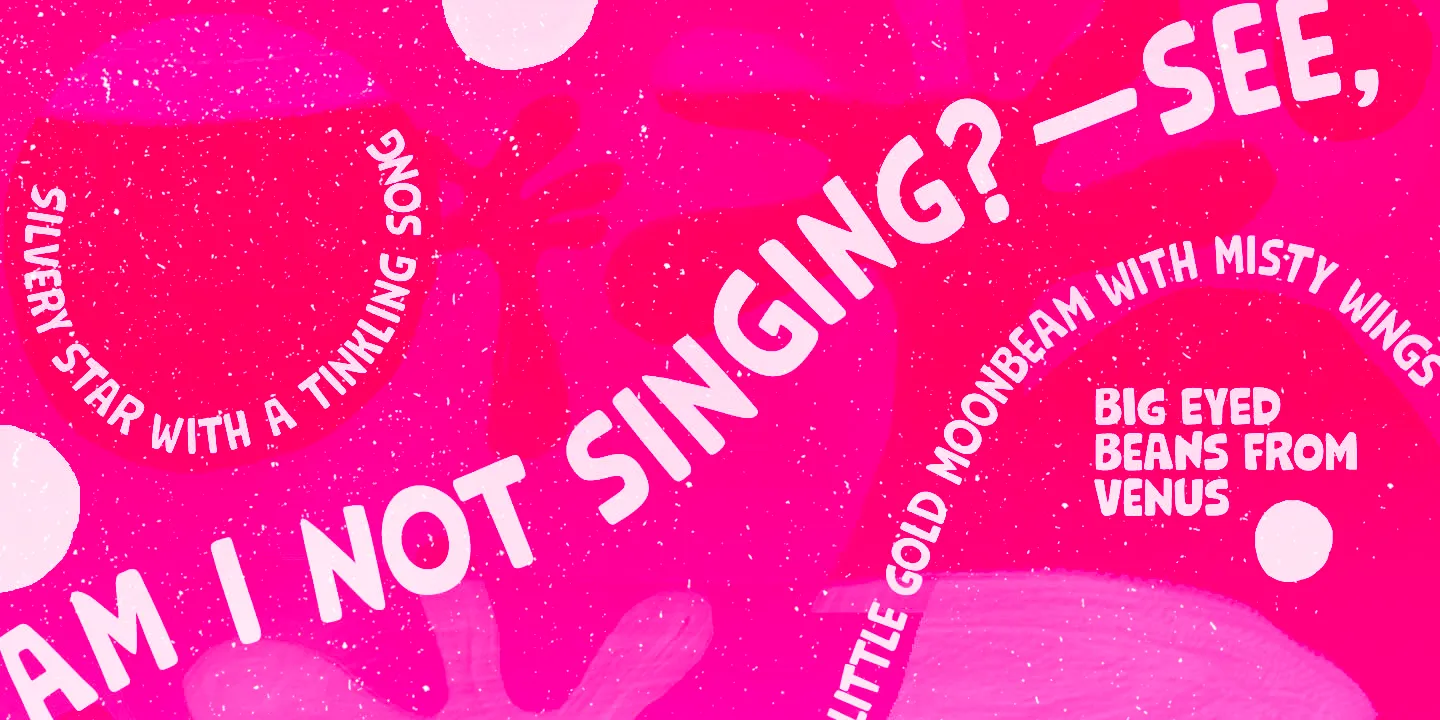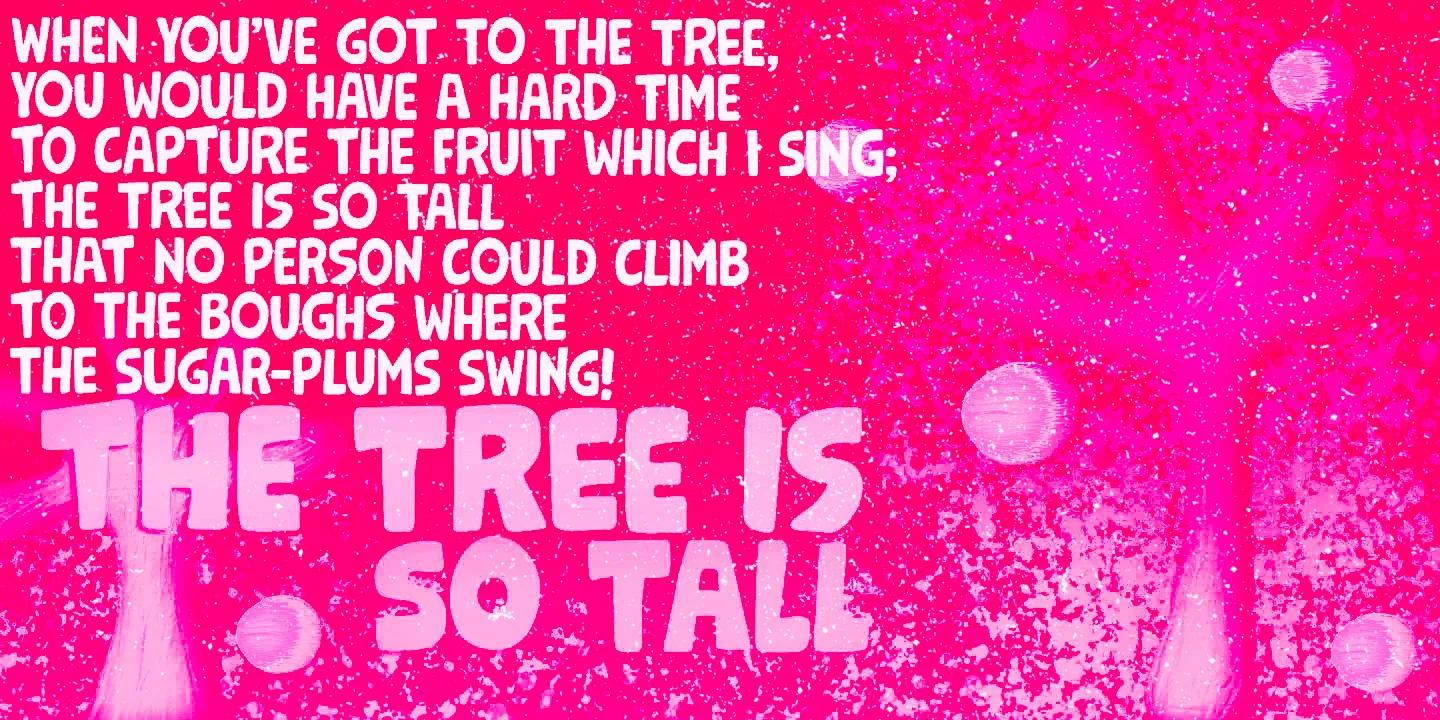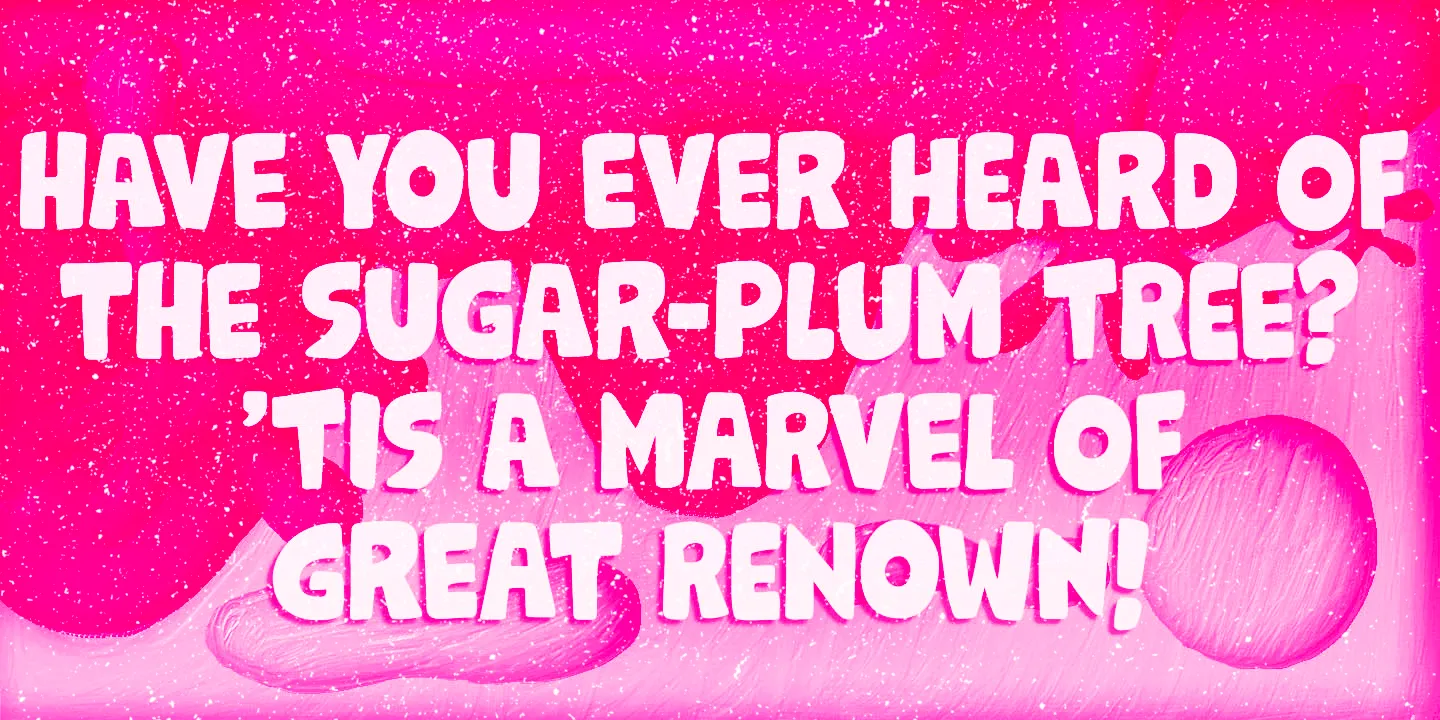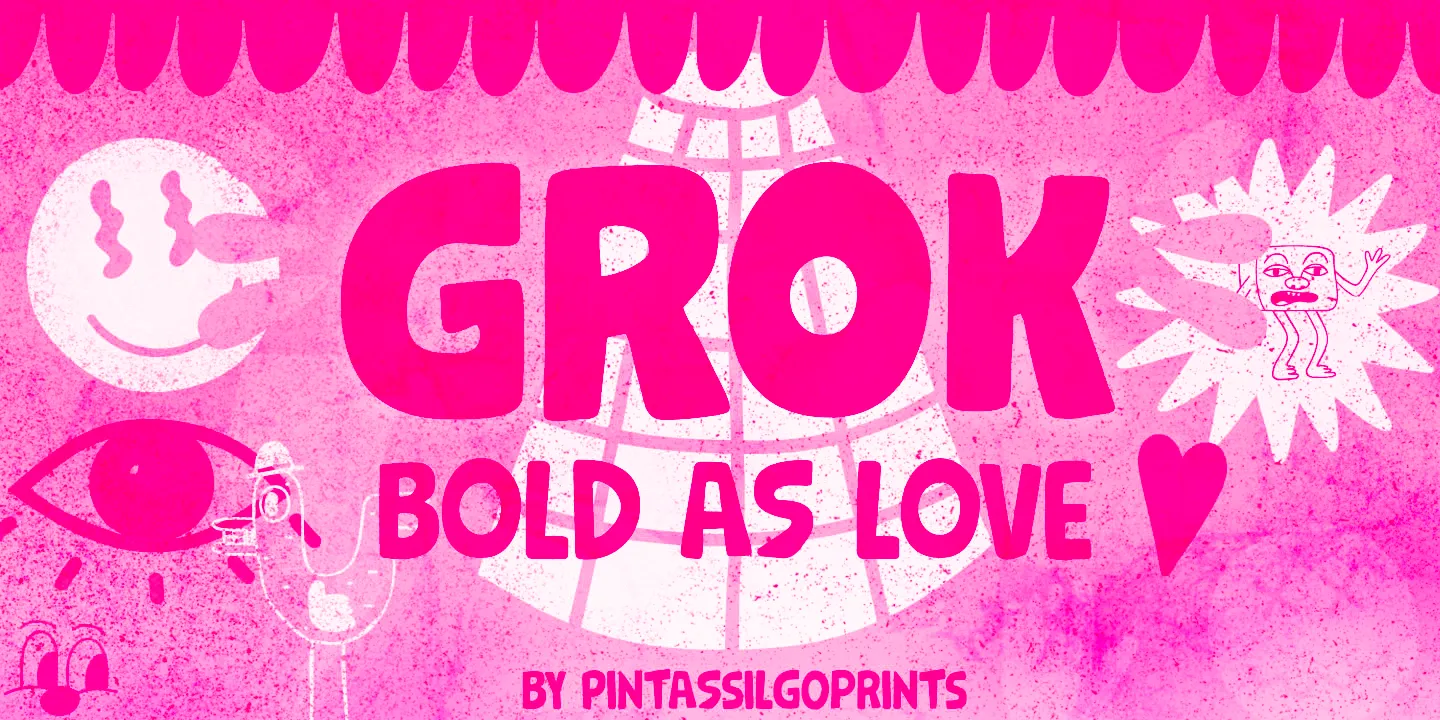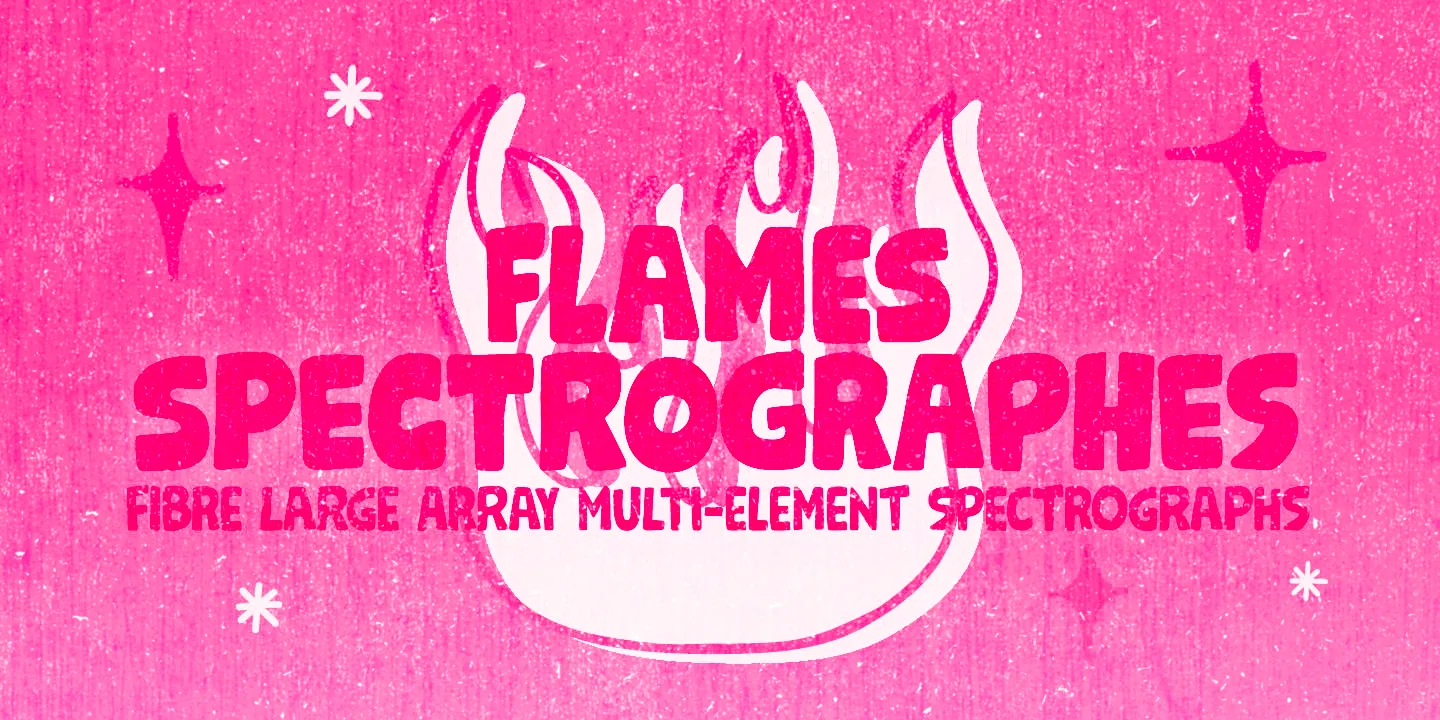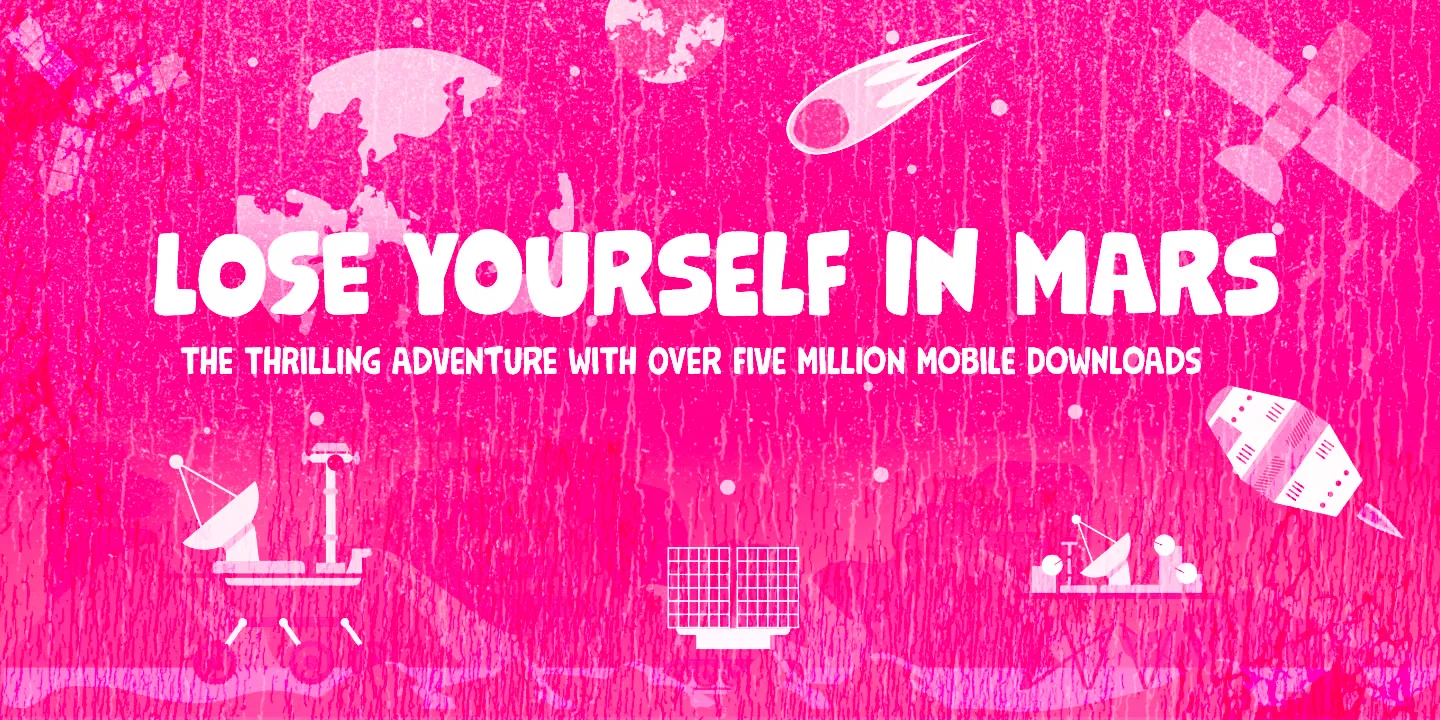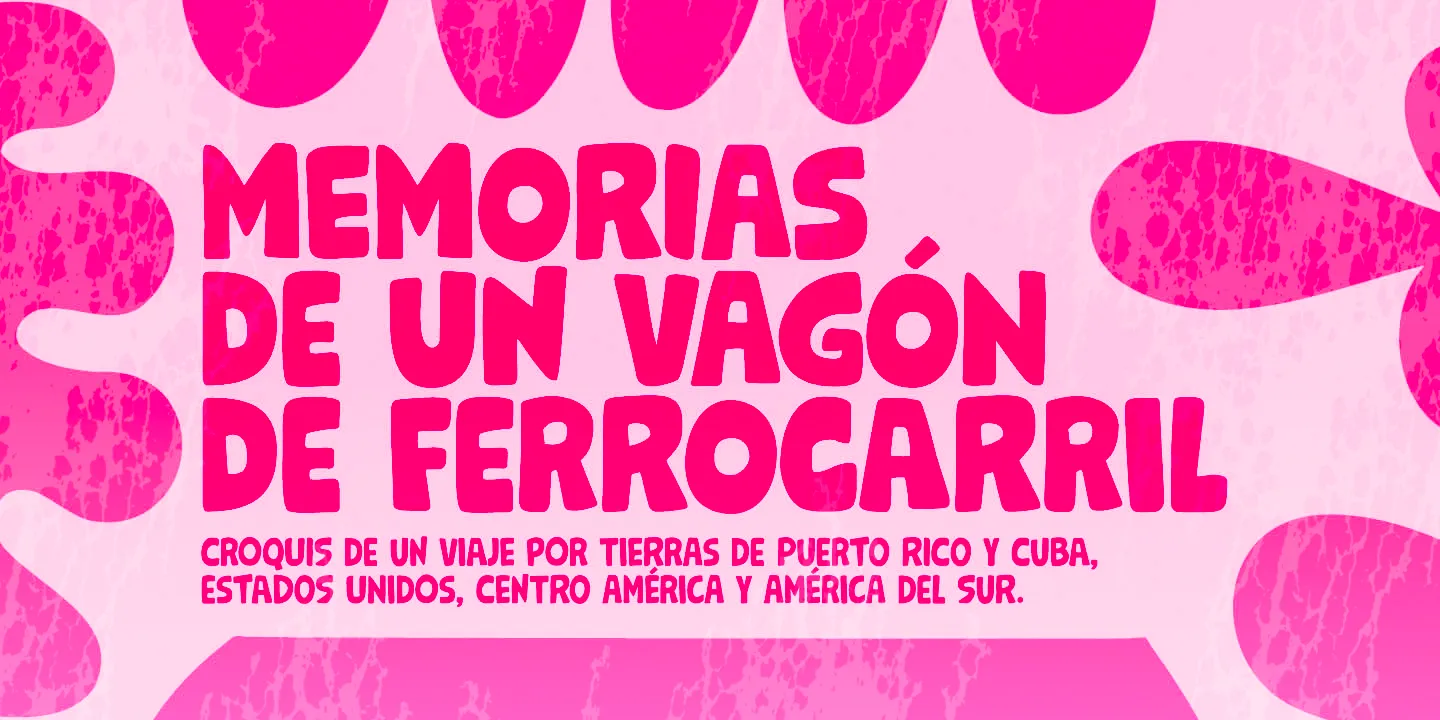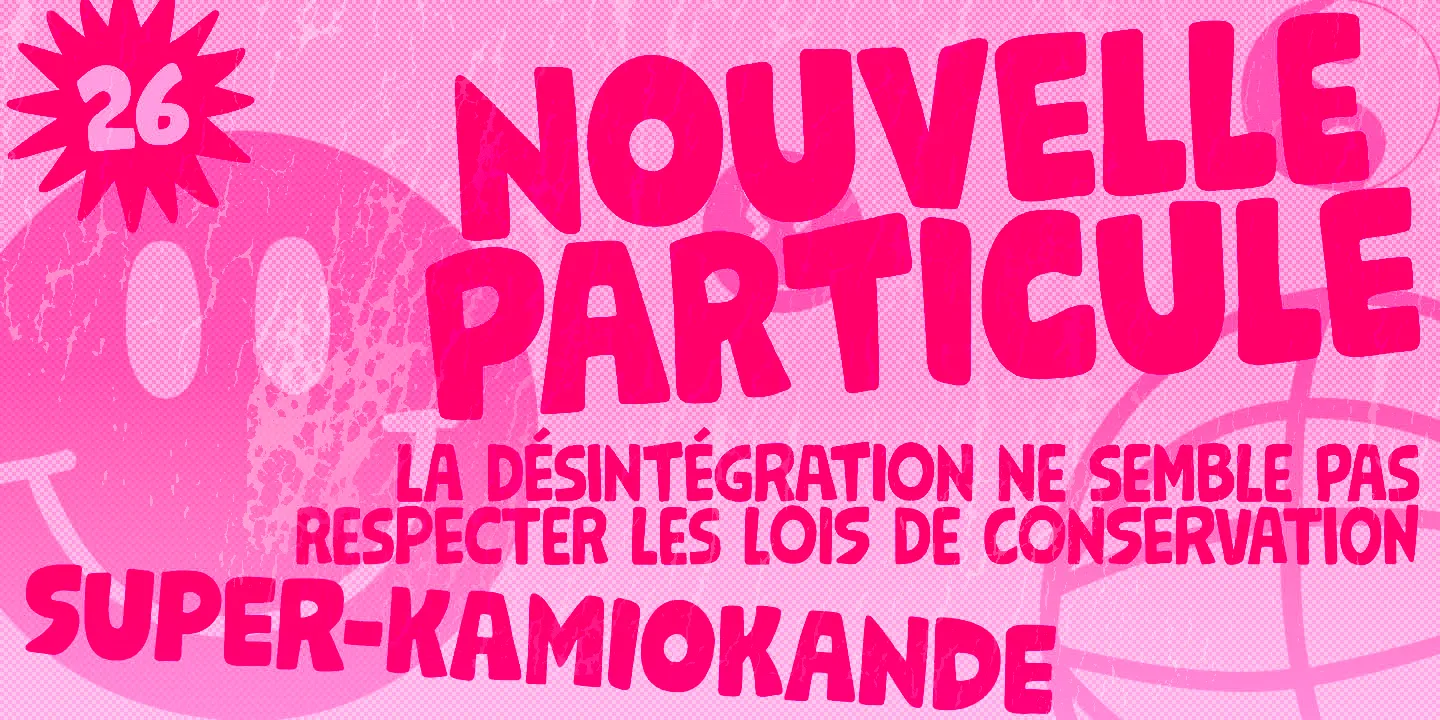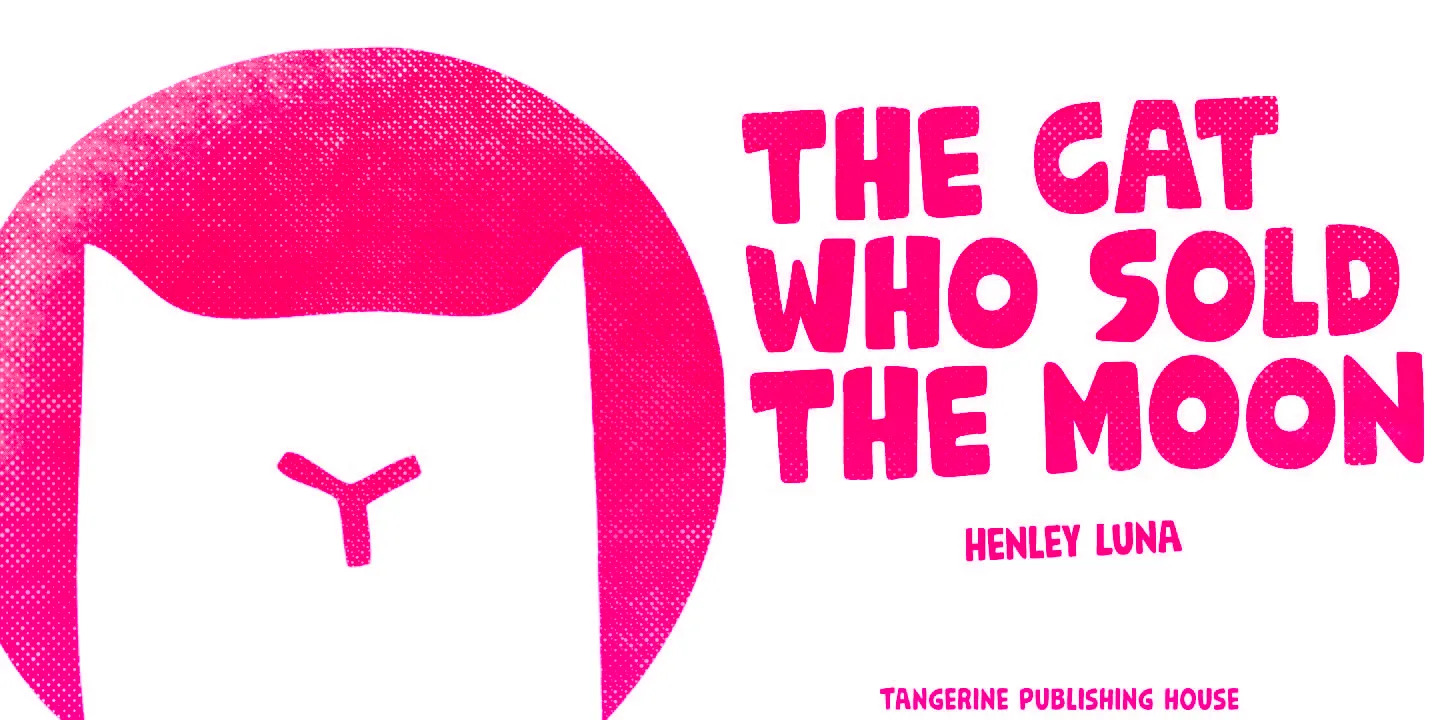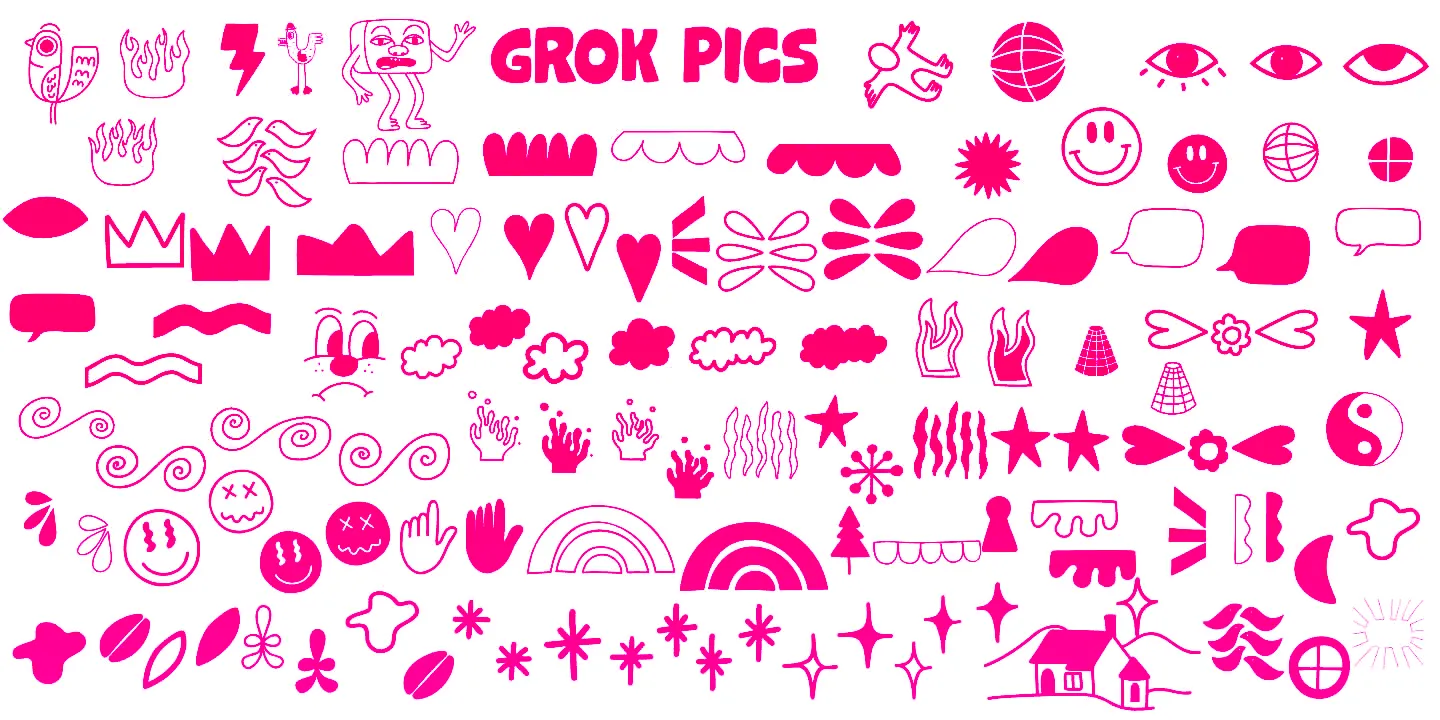
Grok Font Family
• Grok Outline
• Grok Pics
• Grok Regular
• Grok Slim
Grok
Grok is a bold-as-love hand-drawn typeface. Assertive and soft. Showy and friendly. Perfectly suited for any display use: packaging, signage, web, editorial design, and book covers. It’s an all-caps font with two choices for each letter, giving it a handcrafted look. Grok comes in three styles: Outline, Regular, and Slim. There’s also a nifty picture font with dozens of stylistically matching dingbats to beautify your words. Make a bold typographic statement with Grok!